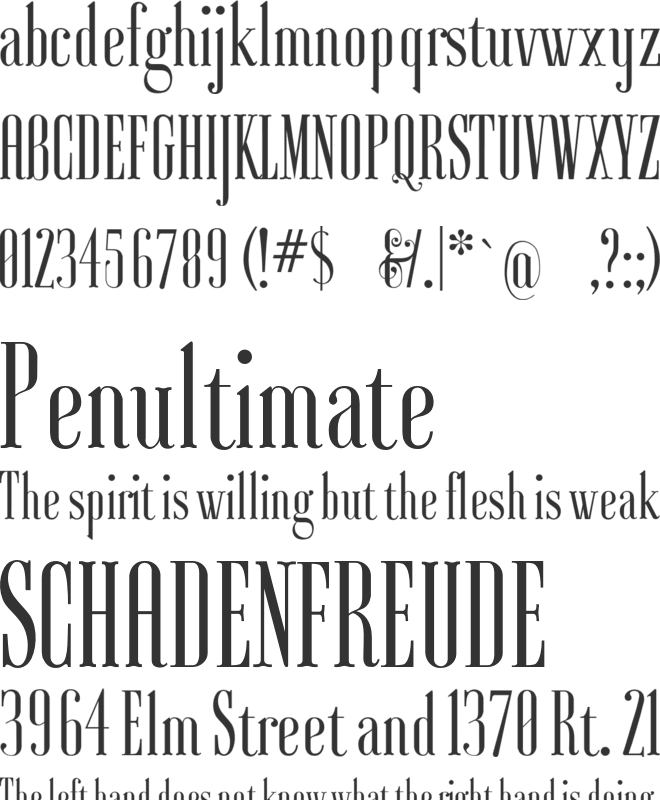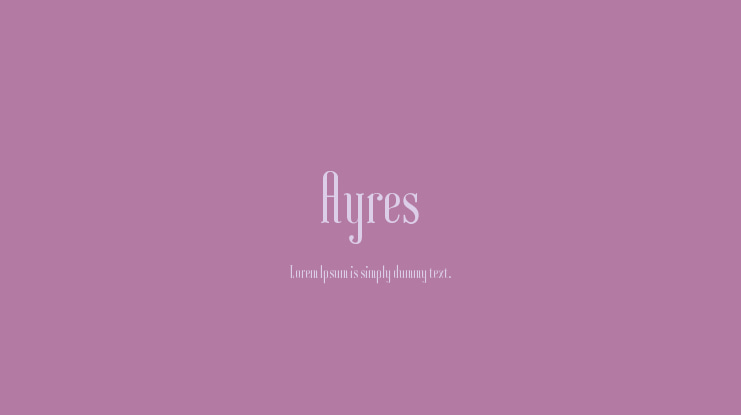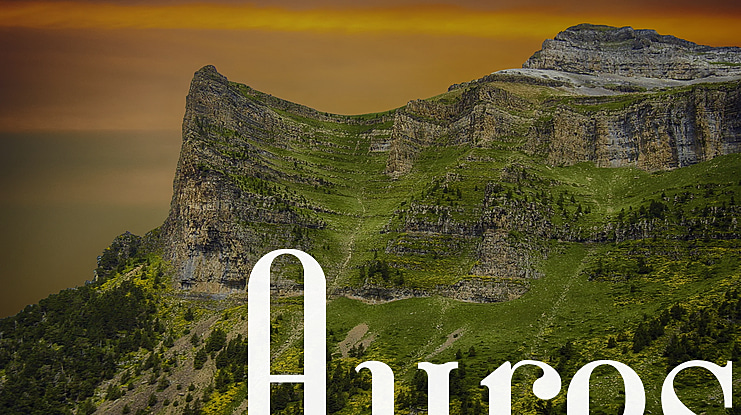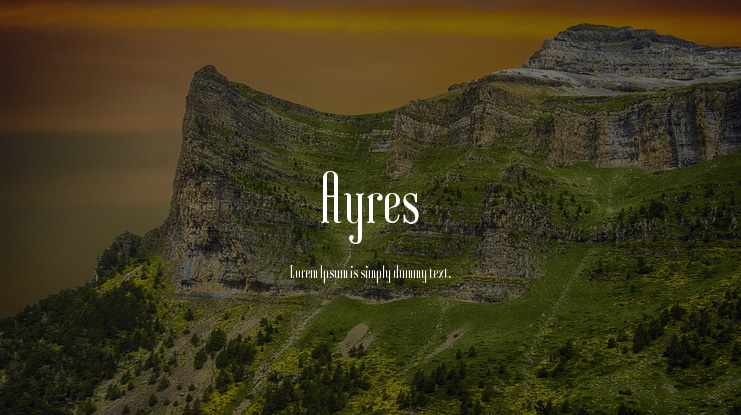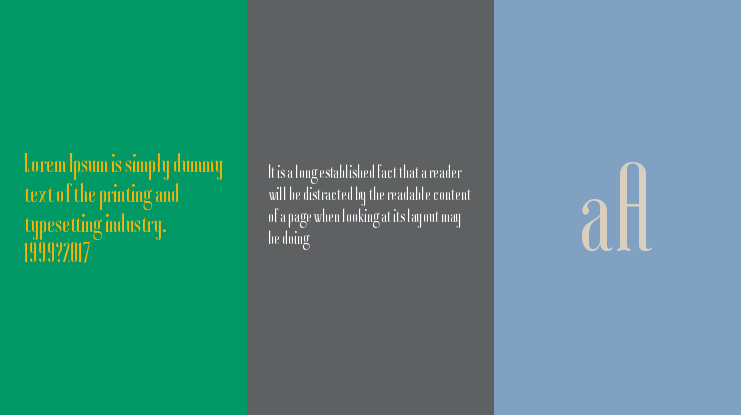
Ayres Font
Ayres is a condensed serif font, for display use. It contains uppercase and lowercase letters, numerals, symbols, alternates and ligatures. This font perfectly suits for wedding, fashion, branding and more.